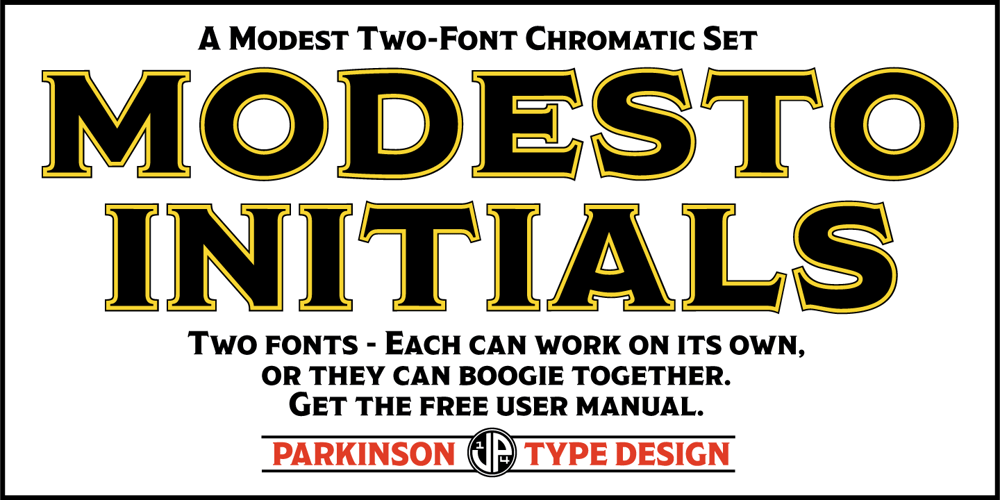
Modesto Initials
Modesto Initials font
Modesto Initials Font Family was designed by Jim Parkinson and published by Parkinson. Modesto Initials contains 2 styles and family package options. Modesto Initials had existed as a single font for several years. I recently added a fill font to put color in the Inlines. The Inline font still works by itself. The Fill font works alone too, as an ultra Modesto on steroids. They work best together. Modesto is a loose-knit family based on a signpainters lettering style popular in the late-19th and early-20th centuries. It evolved from the lettering I used for the Ringling Bros. and Barnum & Bailey Circus Logo. The Modesto family was not planned. It just happened, a few fonts at a time over about fifteen years. In 2014 seven new Italic fonts and two Chromatic families were added. There is a downloadable MODESTO USER MANUAL PDF in the Gallery section for this family.